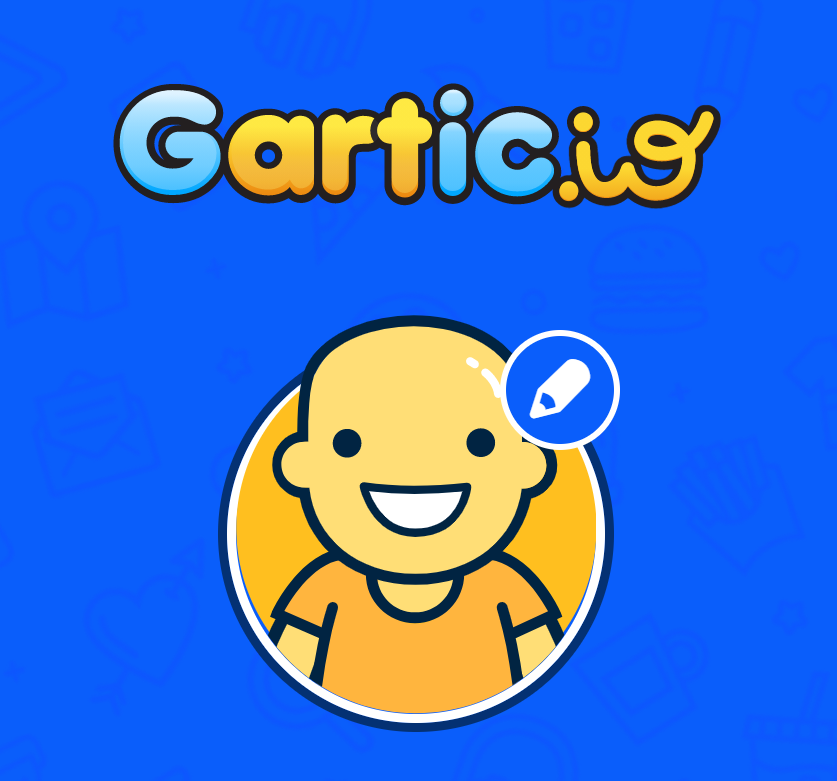
Gartic Logo Font
Fonts in UseGartic is an online multiplayer drawing and guessing game where players take turns drawing and guessing each other's drawings. It offers a variety of game modes, themes, and customization options to keep players engaged.
Anja Eliane, created by Edson & Eliane, is the most similar font to the logo and it can be downloaded for free from the Fonts Used Section. Meanwhile, the website text uses Nunito font designed by Vernon Adams exclusively for menus and headlines, which is a rounded grotesque font available under SIL Open Font license.